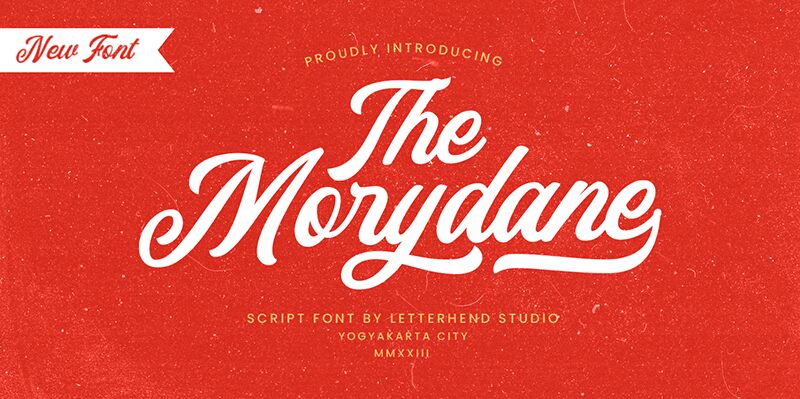
The Morydane font by Letterhend Studio is a free calligraphy font that captures the timeless charm of vintage aesthetics. Its elegant flow, dynamic movement, and expressive curves offer a decorative style that stands out. With a blend of classic script and expressive charisma, The Morydane adds a touch of retro inspiration, offering a timeless appeal suitable for various design needs.
Bring the best of The Morydane to logos, typography, branding, posters, headers, letterheads, wedding invitations, T-shirt designs, labels, and product packaging. Use The Morydane font in magazine covers, social media posts, labels, and badges.